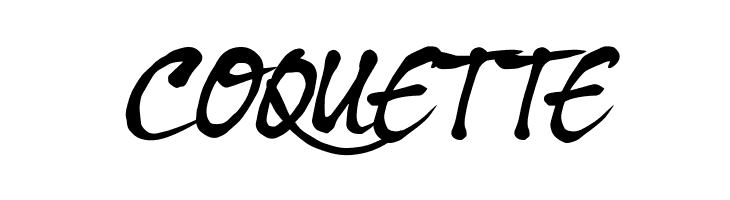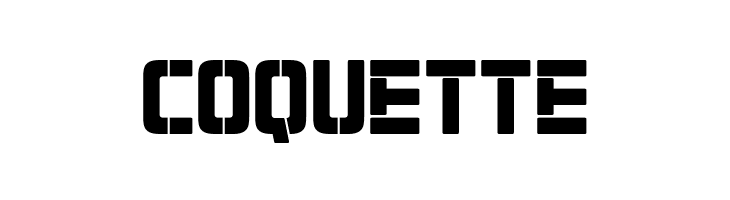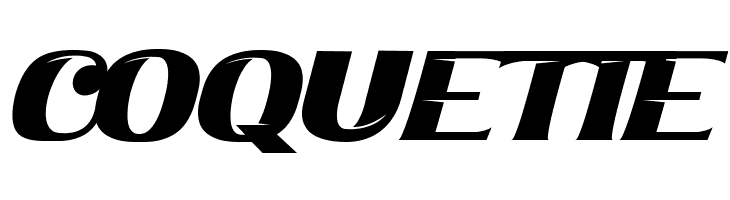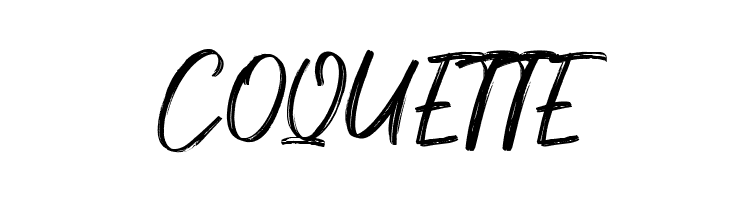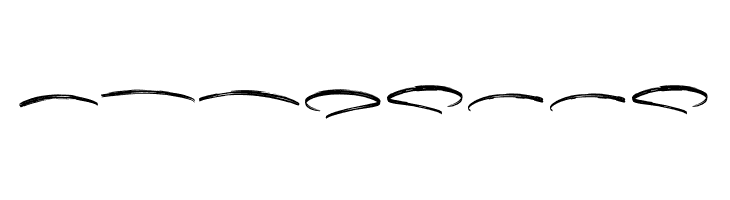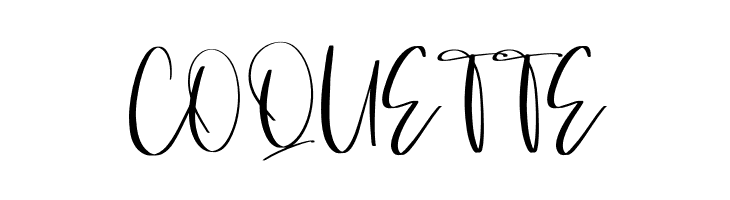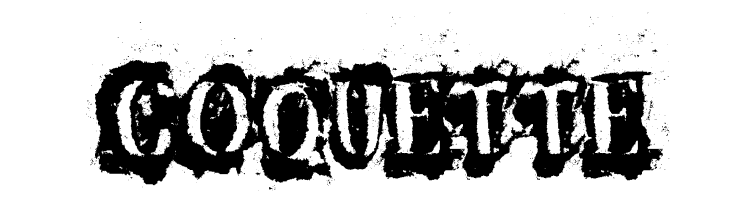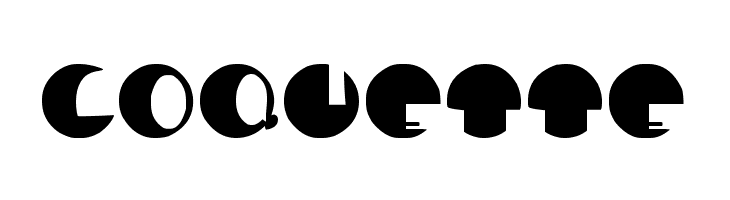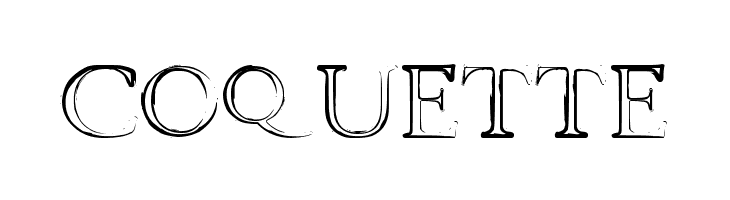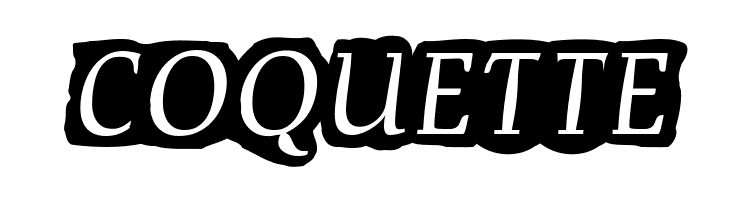
A bold, decorative font with high contrast and dynamic style.
A classic serif font with an elegant italic slant and medium contrast.
A bold, geometric font with a modern and robust style.
A dynamic, hand-drawn script font with energetic strokes and a lively appearance.
Hand-drawn, calligraphic underline decorations.
A bold, stacked font with a modern and impactful design.
A bold, grunge-style font with a distressed and dynamic appearance.
A bold, sketch-like font with a playful, hand-drawn style.
A decorative font inspired by ancient Ugaritic script with bold, angular characters.
A fluid and graceful script font with a modern, elegant style.
A bold, italicized font with angular, dynamic characters.
An elegant, flowing cursive font with intricate connections and graceful curves.
An elegant, cursive italic font with a flowing, handwritten style.
A modern handwritten font with elegant, fluid strokes and a cursive style.
A bold, expressive handwritten font with dynamic curves and flourishes.
A lively and expressive handwritten font with fluid strokes and decorative flair.
A bold, dynamic font with a slanted, energetic style.
A bold, distressed font with a grunge, vintage aesthetic.
A bold, distressed font with a vintage, textured appearance.
A bold, distressed font with a gritty, vintage punk aesthetic.
A bold, distressed font with a gritty, urban aesthetic.
A bold, geometric font with an industrial and modern aesthetic.
A bold, geometric font with a blocky and modern design.
A decorative serif font with artistic, hand-drawn embellishments.